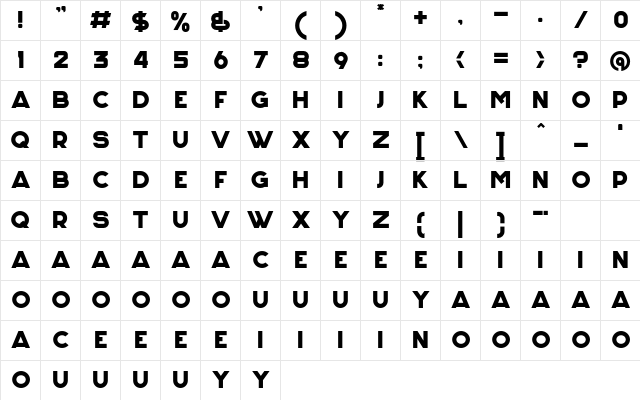
Overgrow Demo
| Foundry | Revorklab |
| Designer | Revorklab |
Design Context for Overgrow Typeface
Overgrow takes a measured approach to typography — its balanced proportions and neutral character make it a reliable workhorse for both digital and print work.